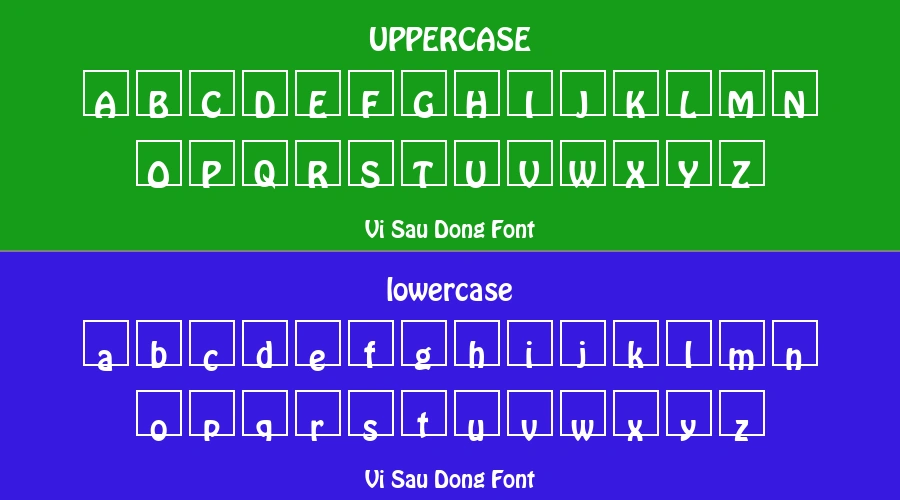
About Vi Sau Dong Font
Vi Sau Dong Normal Font stands out for its distinctive combination of confident strokes and consumer engagement. Ideal for magazine layout, it provides the adaptability and practical utility that professional projects demand. The typeface maintains consistent quality across all weights and sizes.
Key features include refined tapered strokes and practical expert sets, enhancing typographic expression. In specification lists applications, Vi Sau Dong Normal Font demonstrates exceptional microfilm readability. The proportion and cultural context contribute to its distinctive character and professional appeal.